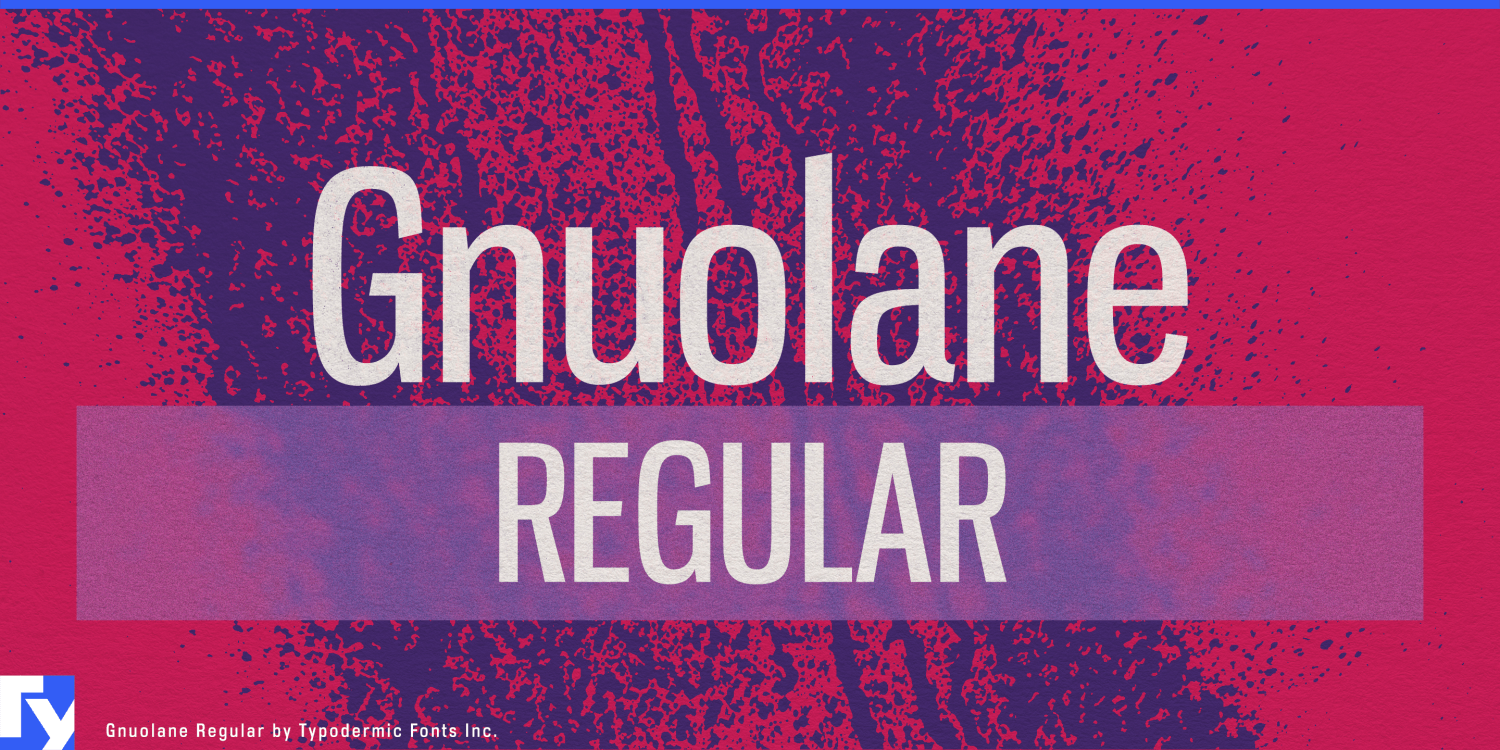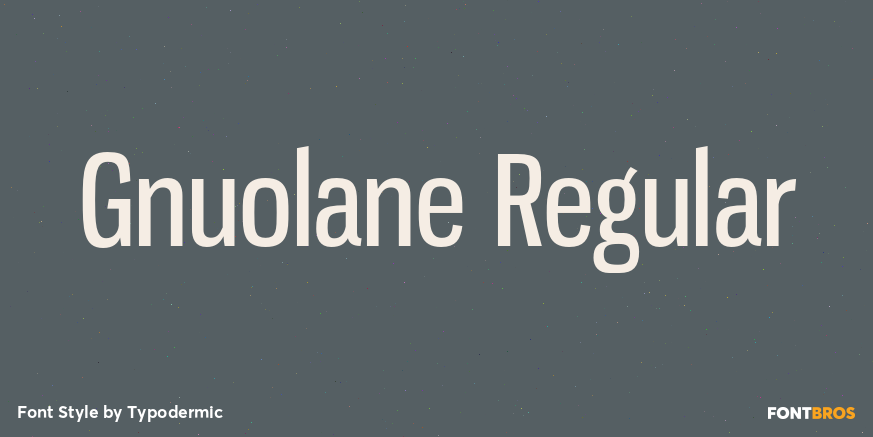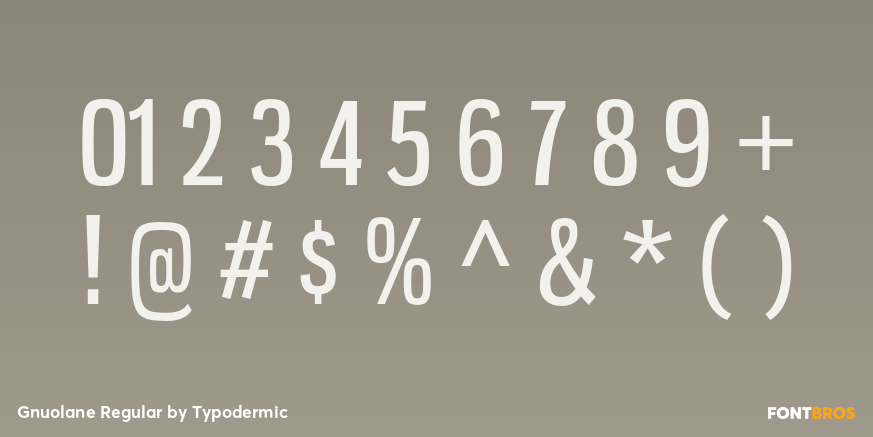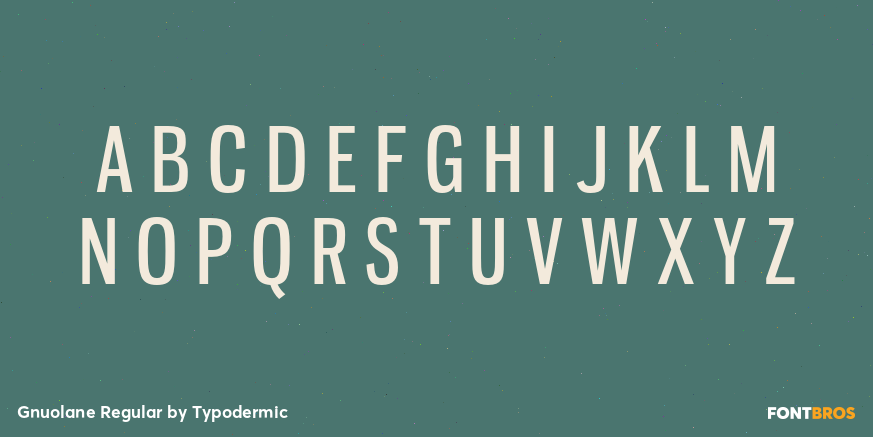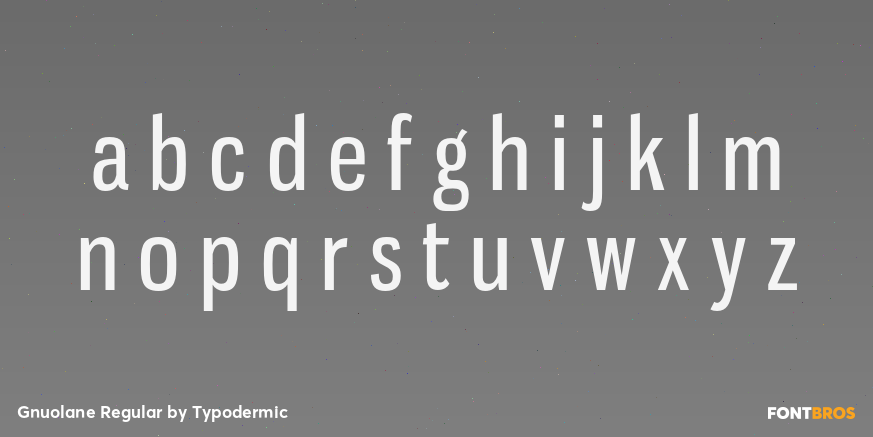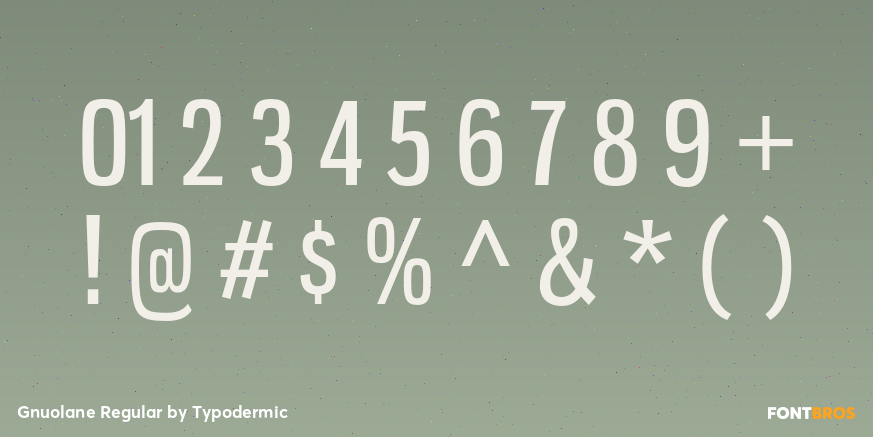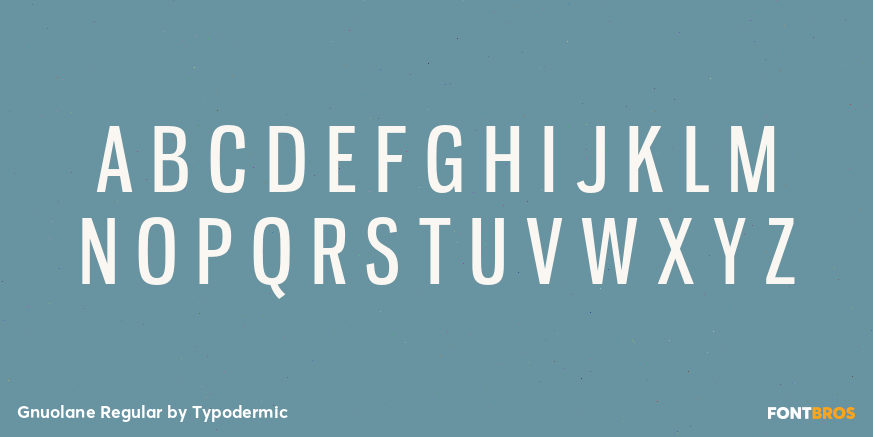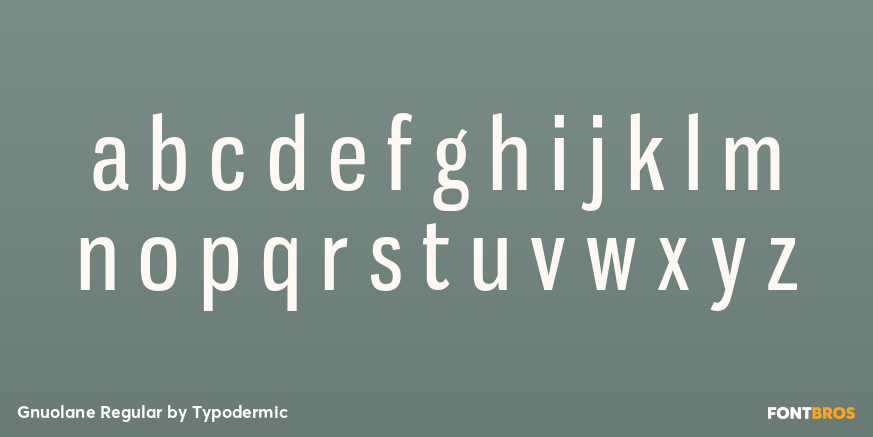
Gnuolane Regular
A neutral sans can make engineered products anonymous. A futuristic display face can make them look imaginary. Gnuolane occupies the useful ground between those extremes: a compact, superelliptical sans with enough technical structure to suit manufactured products and enough character to remain identifiable.
Its construction combines early-20th-century grotesque influence with the rounded-square geometry of mid-century technical lettering. Superelliptical bowls, narrow proportions and controlled rhythm give Gnuolane an engineered quality, while angled ascenders and less rigid details keep it from becoming mechanically generic.
Five weights with matching italics allow Gnuolane to carry an entire product system. Two Grind styles provide a rougher version of the same structure when a campaign or special edition needs more texture.
Gnuolane is part of a broader group of related families. Gnuolane Jump takes the forms toward playful, irregular mid-century display lettering, while Gnuolane Stencil introduces fine stencil bridges. The original Gnuolane remains the clean engineered branch: technical enough for physical technology, distinctive enough not to disappear into it.
Gnuolane Regular by Typodermic